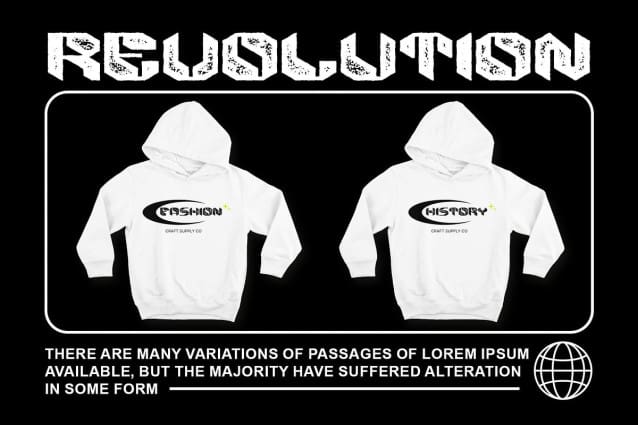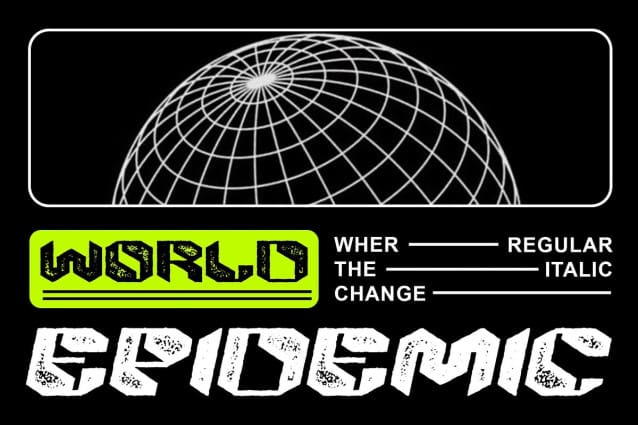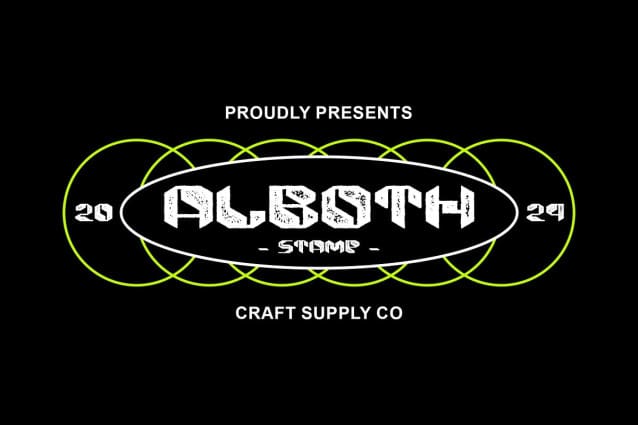
Alboth Stamp Font
Alboth Stamp Font: Vintage Symmetry with Robotic Inspiration. Symmetric Display Design Alboth Stamp boasts a symmetric display design inspired by the sleek lines and geometric precision of robots. Its symmetrical layout exudes modernity and orderliness.
Robot-Inspired Aesthetics Drawing inspiration from robotics, This font features clean lines and precise shapes that evoke a sense of futuristic sophistication. The font’s design pays homage to the sleek aesthetics of mechanical beings.
Vintage Stamp Effect Adding to its allure is the vintage stamp effect, which imbues the font with a nostalgic charm reminiscent of old-school machinery and industrial aesthetics. This effect adds depth and character to the overall design.
Perfect for Display Purposes With its symmetrical layout and vintage stamp effect, This font is tailor-made for display purposes. It commands attention and adds a touch of retro-futurism to posters, headlines, and other prominent design elements.
Futuristic Symmetry Meets Vintage Charm This font combines the precision of robotic aesthetics with the nostalgic appeal of vintage stamp effects, resulting in a font that is both modern and timeless. Its symmetrical design and retro vibes make it an ideal choice for designers looking to infuse their projects with a unique blend of past and future aesthetics.